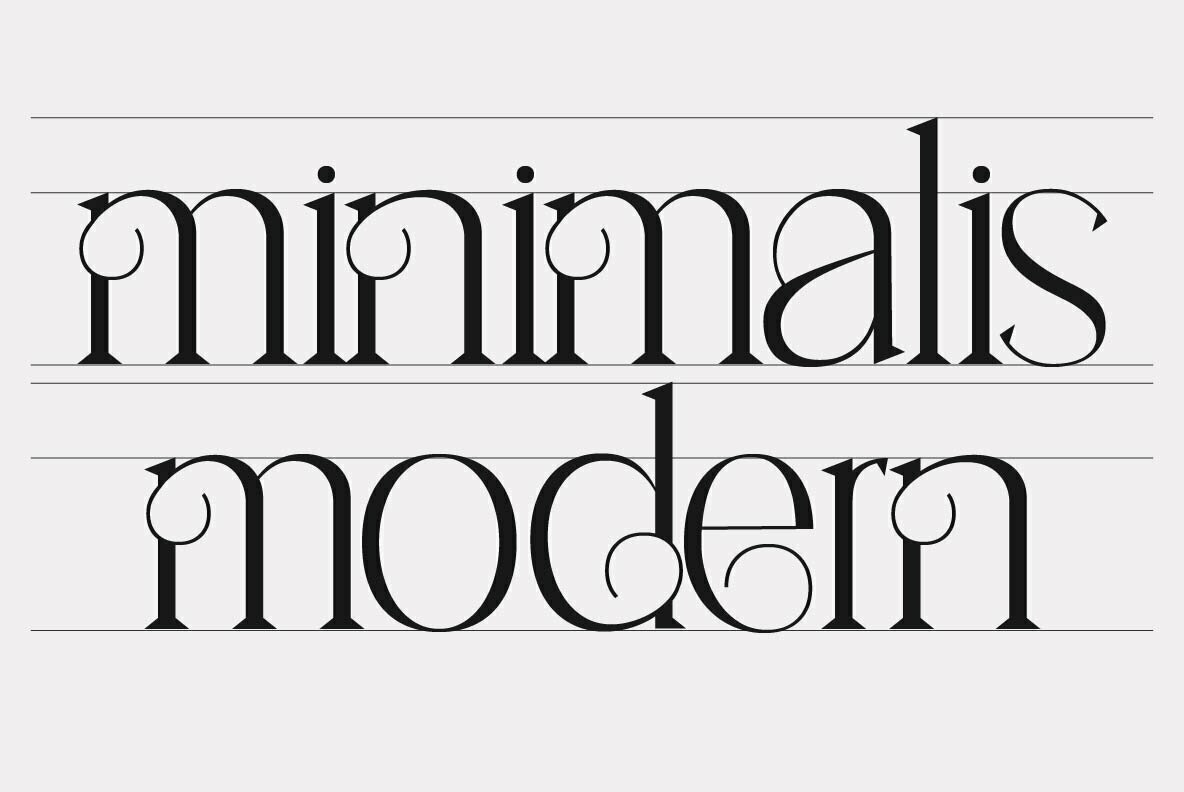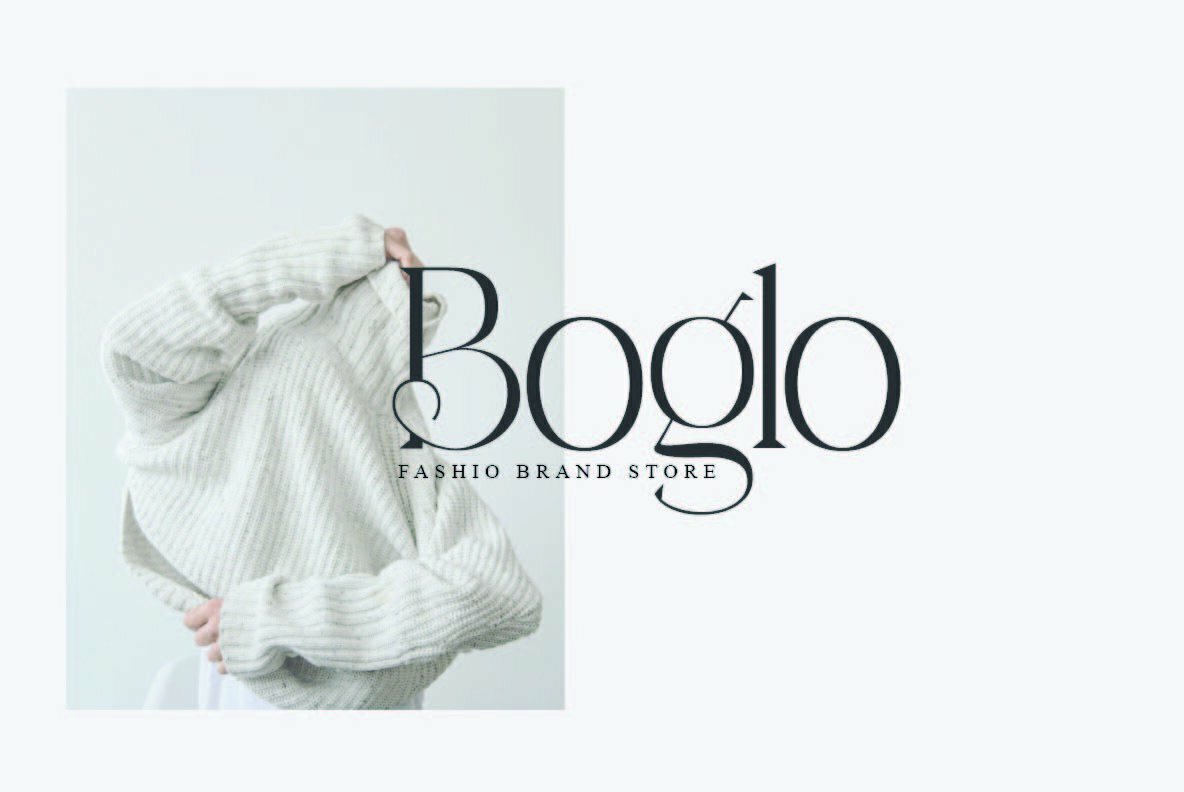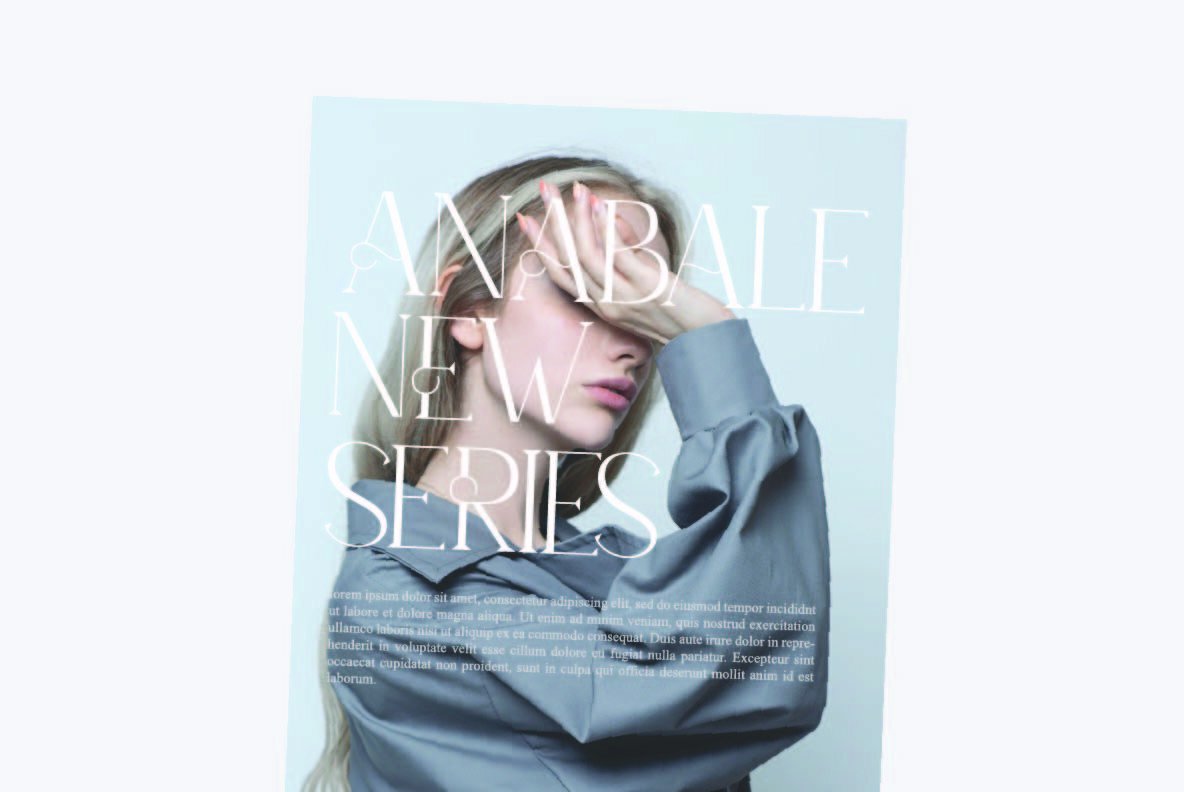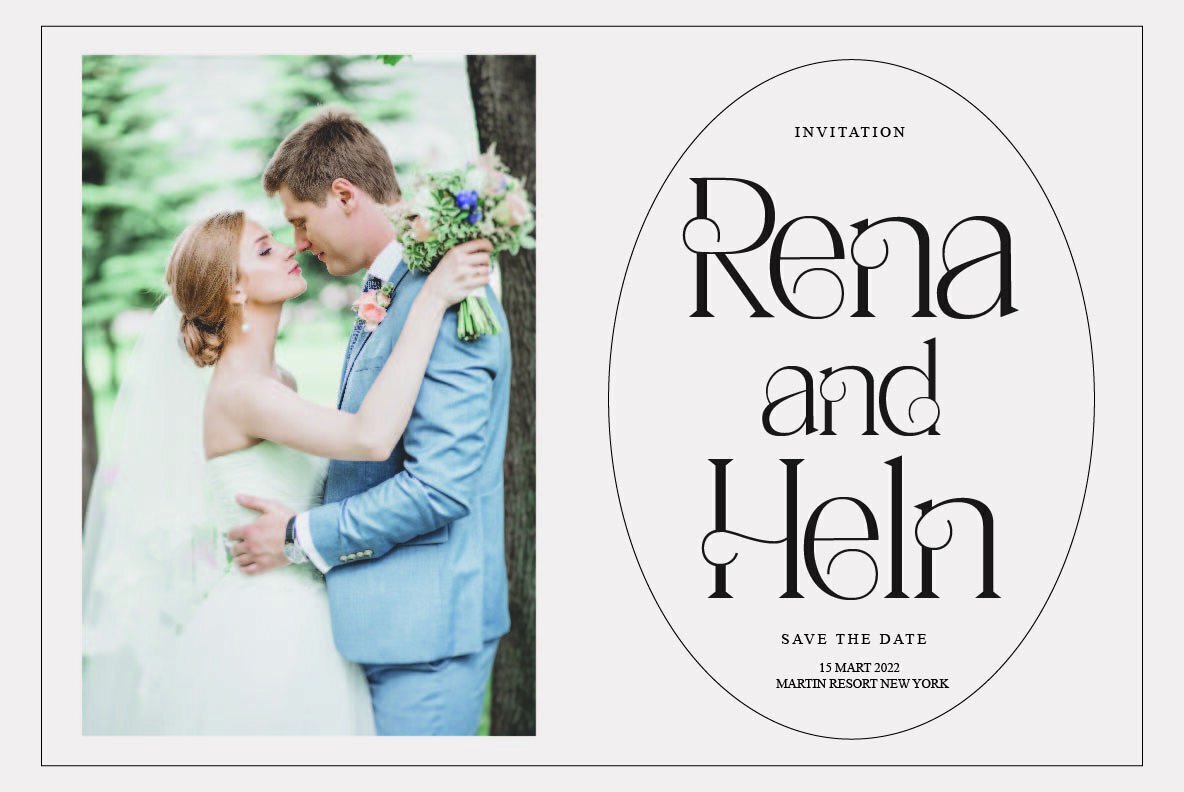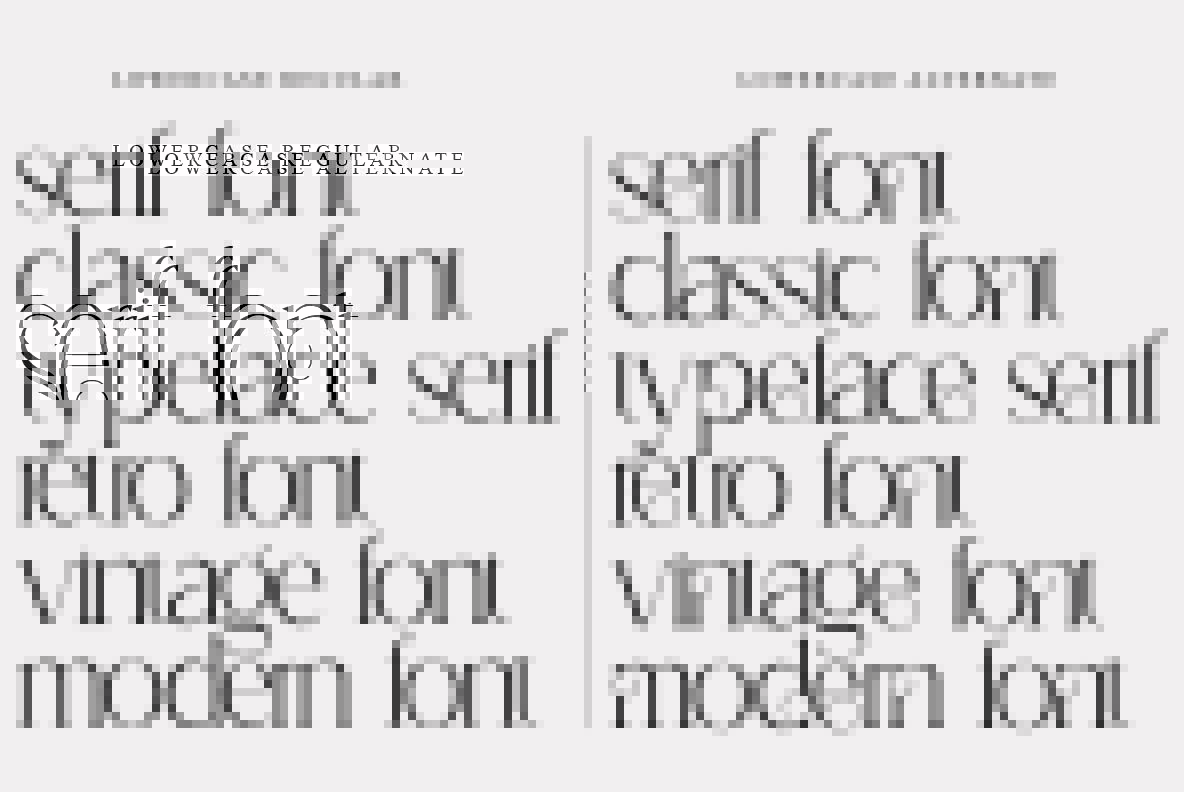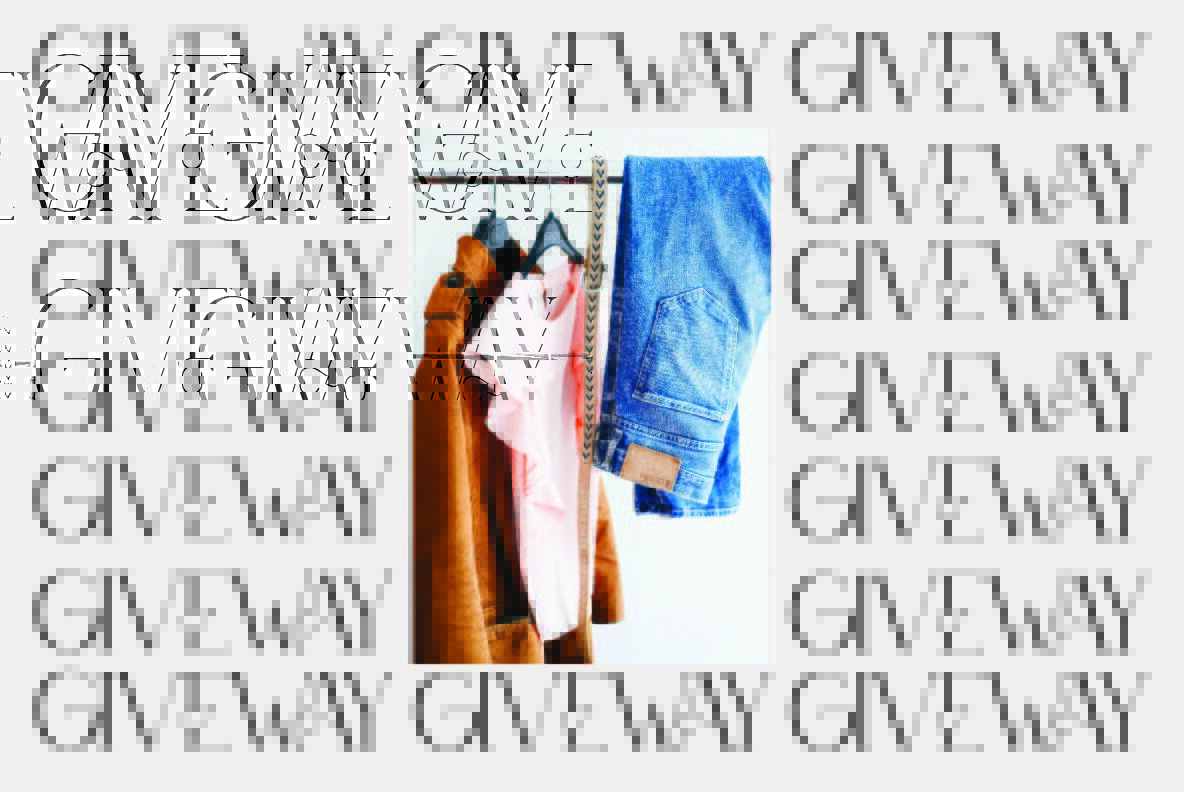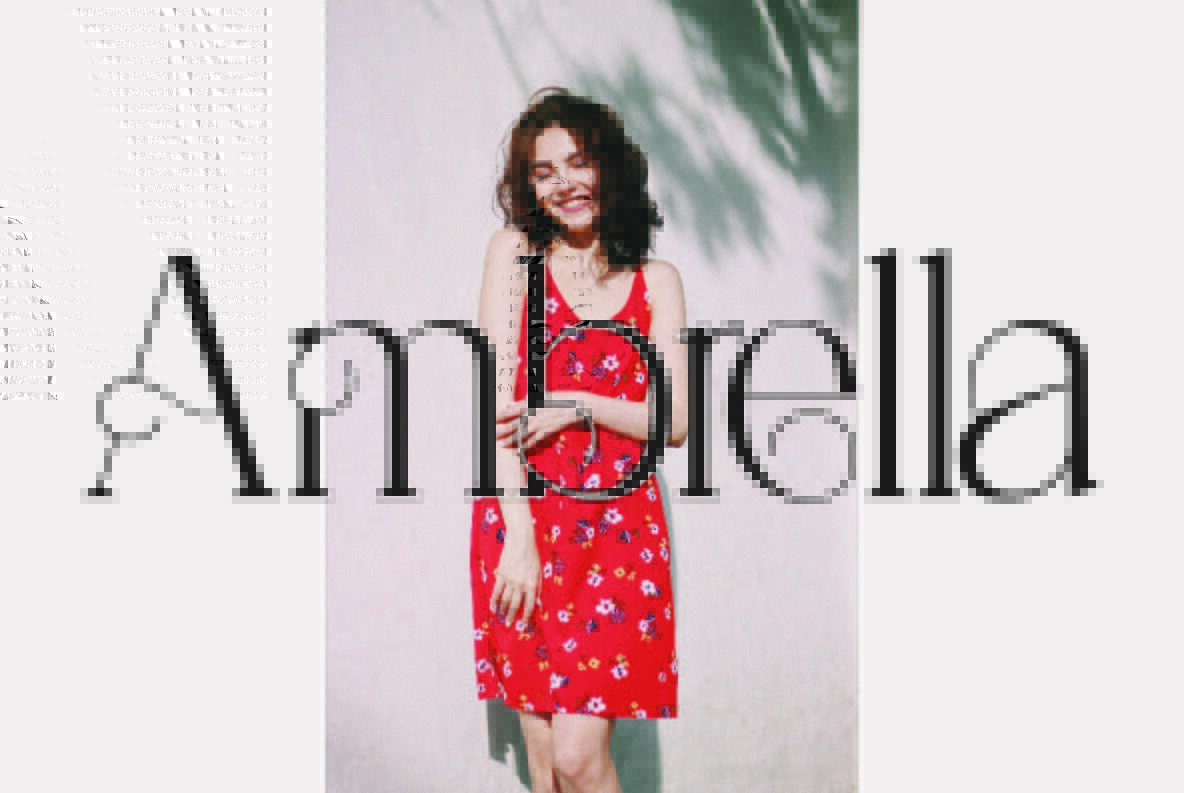
Aikenap Font
Aikenap Regular
Aikona is a modern serif font with beautiful alternate characters, special glyphs and multilingual support. It's a very versatile font that works great in large or small sizes for any project you can think of.
- Lowercase and Uppercase
- Alternete
- Numerals & Punctuation
- Accented characters
- Multiple Languages Supported